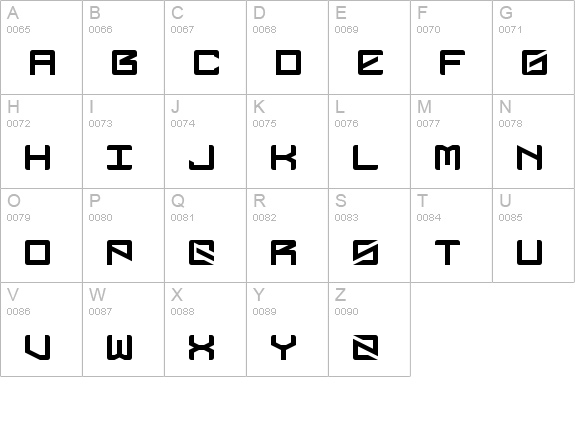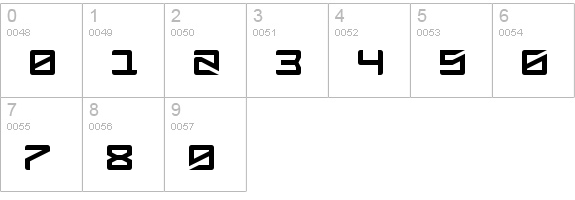
DubbingStar Regular Font Details
DubbingStar Regular is the standard, neutral variant in the DubbingStar typeface family \xE2\x80\x94 well suited to general body text, paragraphs, and standard typographic work.
DubbingStar Regular font is a versatile and modern typeface that exudes elegance and sophistication. With its clean lines and balanced proportions, this font is perfect for a wide range of design projects, from branding to editorial design. The classic yet contemporary feel of DubbingStar Regular makes it a timeless choice for any creative endeavor. What sets DubbingStar Regular apart is not only its aesthetic appeal but also its accessibility - it is available for free download at FontsMarket.com. This means that designers and creators can easily access this high-quality font without any cost, making it a valuable resource for projects of all sizes. Whether you are designing a logo, creating a website, or crafting a marketing campaign, DubbingStar Regular is sure to elevate your work with its refined style and versatility. Download DubbingStar Regular today and add a touch of sophistication to your designs.